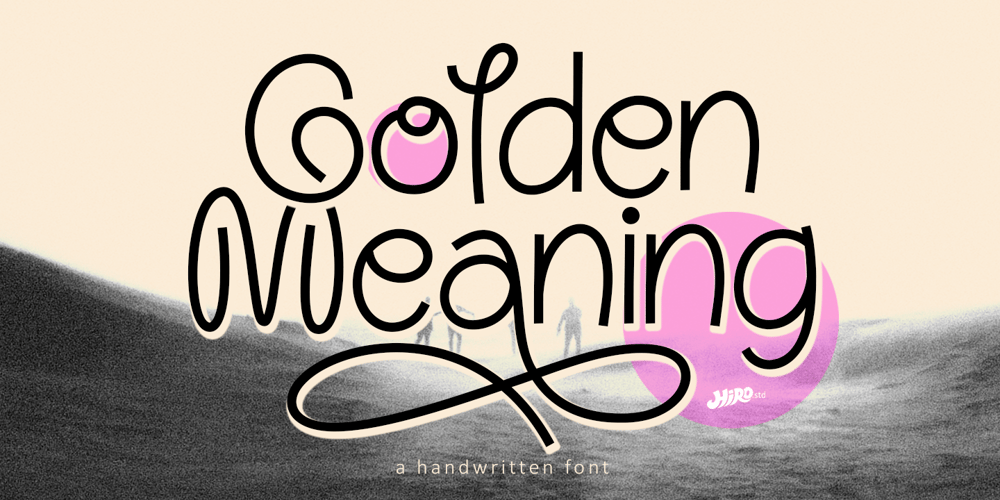
Golden Meaning
Golden Meaning font
Golden Meaning Font Family was designed by Chairul Ashar and published by HIRO.std. Golden Meaning contains 1 styles and family package options. Golden Meaning is a handwritten font. This font describes about stylist, fun and elegant, catchy, dynamic, simple, humanist, clean, easy to use and will bring a good harmony when the letters are connected and paired each other. FEATURES- Support Opentype Features- Support Ligatures- Lowercase beginning and ending alternate- Alternate Swash – Numbering and Punctuations- PUA Encoded Characters- Multilingual Support- Works on PC or Mac USEGolden Meaning works great in any wedding invitations, branding, logotype, apparel, and any projects that need simple script taste. Enjoy using!Thanks. HIRO.std